I need aid finding the font used in the word “arcade”. The image in which it is located is below.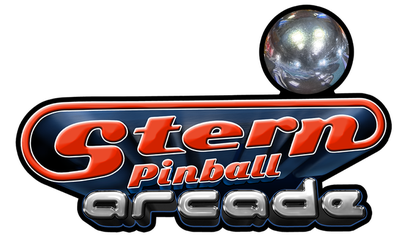
It resembles Motter Tektura, but there are a number of small differences. Also, the word “arcade” has varied in minor ways in different versions of Stern Pinball Arcade and Pinball Arcade (without Stern) logos.